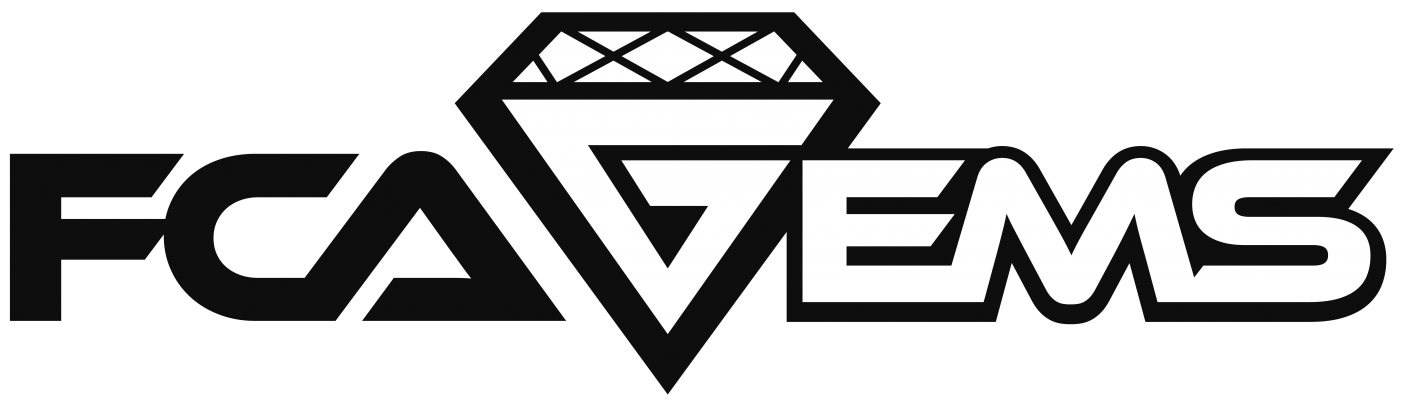
Looking for a font similar to what is used in this logo. (FCA Gems)
I am looking for the font used to create this logo or a similar font that looks like the letters in this logo.  Specifically, I want the A's and S's  and M's to look similar to the ones in this font.  I started looking page by page thru fonts for something that would work but after 100 pages of fonts, I gave up.  I hope you font experts can help.  TIA, Jodi